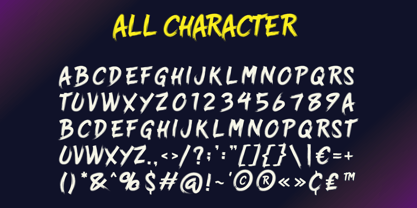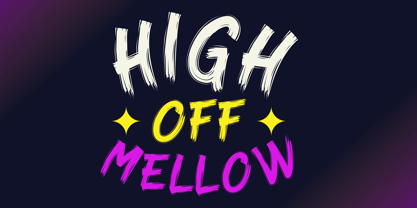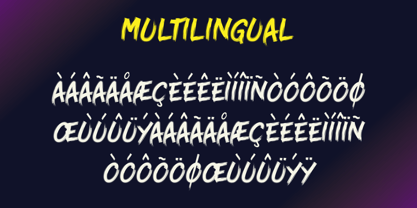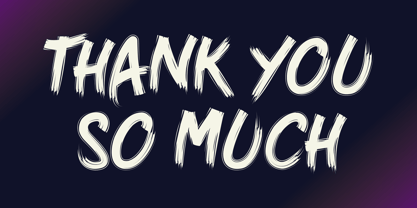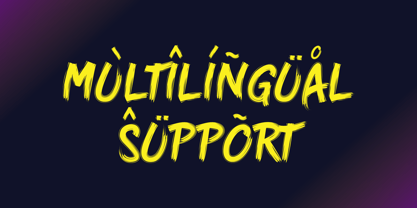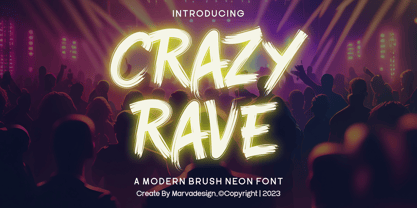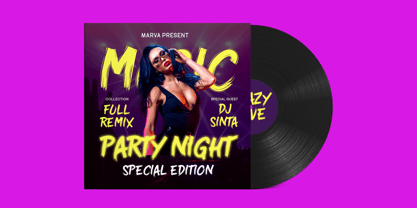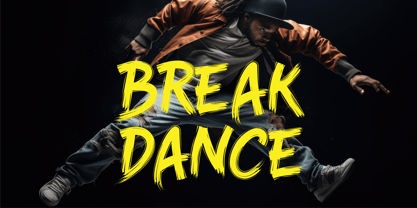
Crazy Rave
by Marvadesign
The Crazy Rave Font Family was designed by Febrie Setiawan and published by Marvadesign. Crazy Rave contains 1 styles. More about this family
Introducing Crazy Rave is a modern brush neon font designed to capture the vibrant energy of nightlife, music festivals, and rave culture. With its bold, hand-brushed strokes and glowing neon effect, this typeface exudes a dynamic and electrifying aesthetic, making it perfect for high-impact designs. The irregular brush strokes give it a raw and expressive look, while the neon illumination adds a futuristic and edgy touch. This font is highly versatile and suitable for party posters, DJ event flyers, music branding, and digital content that demands an energetic and rebellious feel. Crazy Rave includes a complete set of uppercase and lowercase letters, numbers, punctuation marks, and special symbols, ensuring comprehensive usability across various design projects. Its unique combination of brush-style lettering and neon-inspired glow makes it an ideal choice for projects that aim to stand out with a bold and modern statement.
Designers: Febrie Setiawan
Foundry: Marvadesign